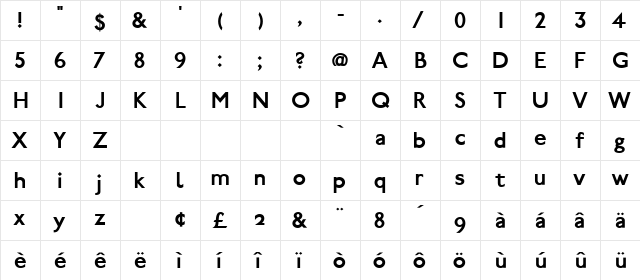
Paddington Bold
Design Context for Paddington Typeface
Paddington takes a measured approach to typography — its balanced proportions and neutral character make it a reliable workhorse for both digital and print work. The heavy weight commands attention and anchors typographic hierarchies.